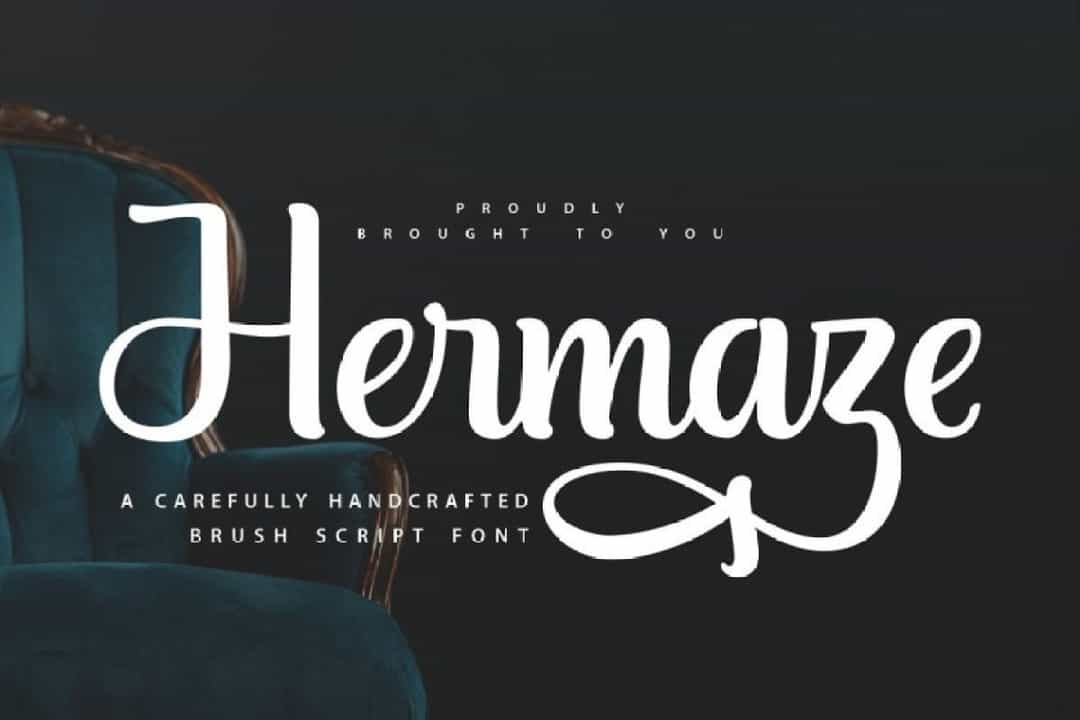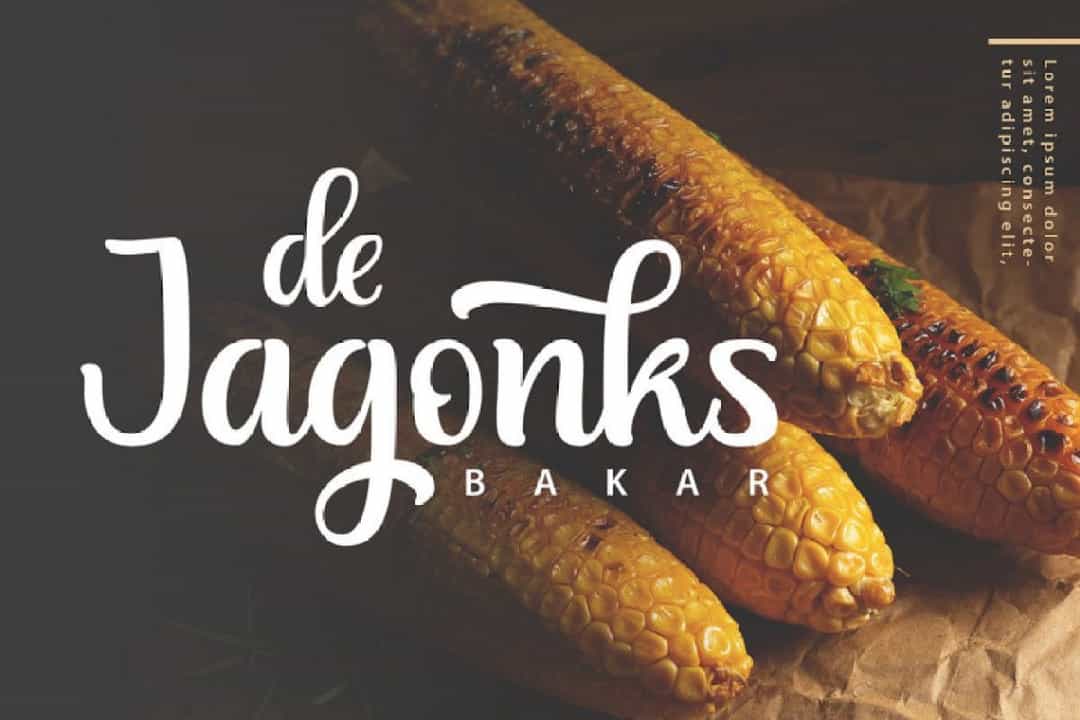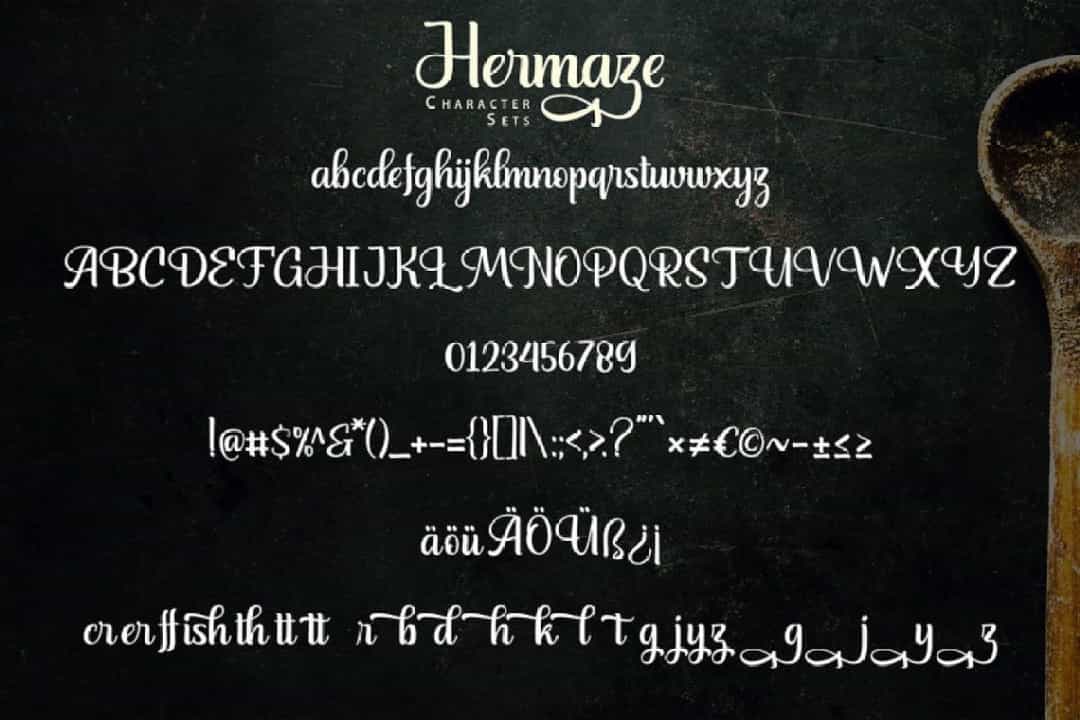
Hermaze is a beautiful handwritten script font designed to add elegance and style to headlines and logotypes. This font exudes strength, confidence, and excitement; adding plenty of nostalgia into any design project.